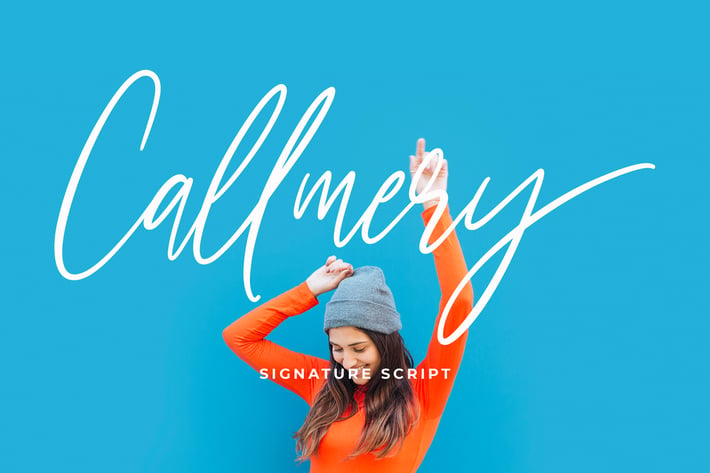
Callmery Signature Script Font
Callmery is perfect for branding projects, logo, wedding designs, social media posts, advertisements, product packaging, product designs, label, photography, watermark, invitation, stationery, and any projects.